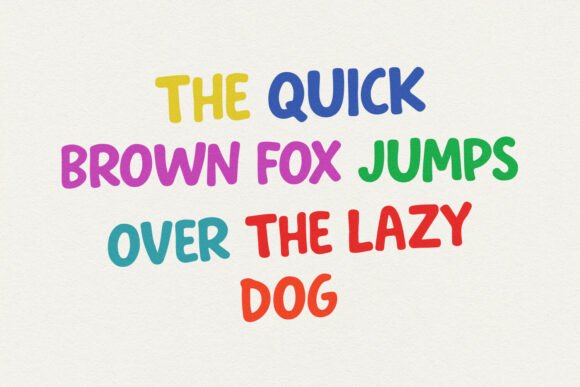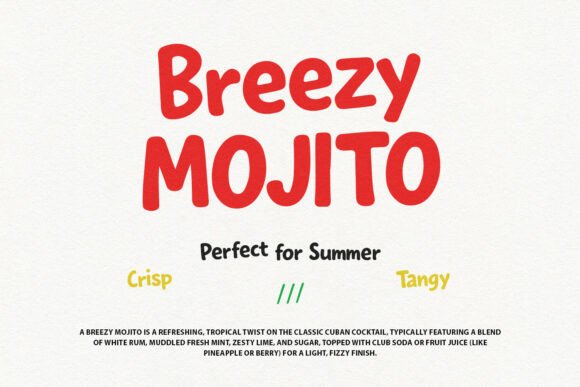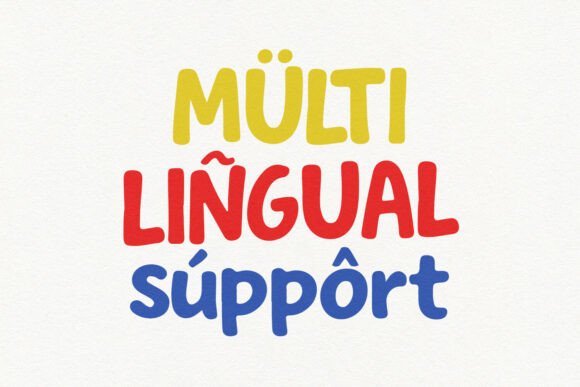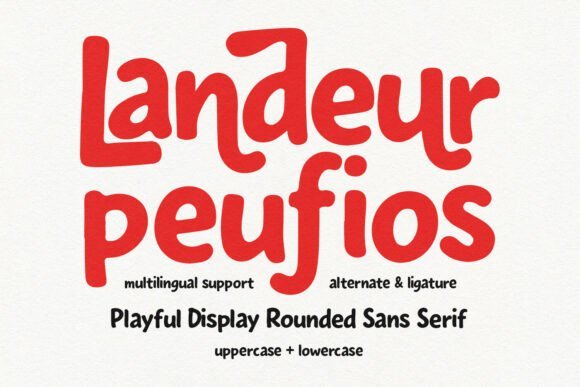
Introduction to Landeur Peufios Font
Landeur Peufios is a vibrant and friendly rounded sans serif typeface designed to bring a sense of joy and approachability to any creative project.
Characterized by its soft edges, organic curves, and unique ligatures, this font family offers a handmade feel that balances modern minimalism with a whimsical spirit Its thick, consistent stroke weight ensures excellent legibility in headlines and display headers, while the included multilingual support and stylistic alternates provide versatile options for global branding, packaging, and digital content.
Key Features of Landeur Peufios Font
Why Choose Landeur Peufios Font?